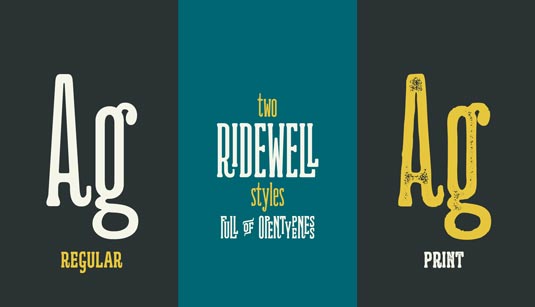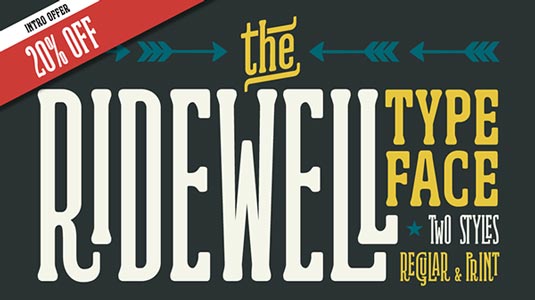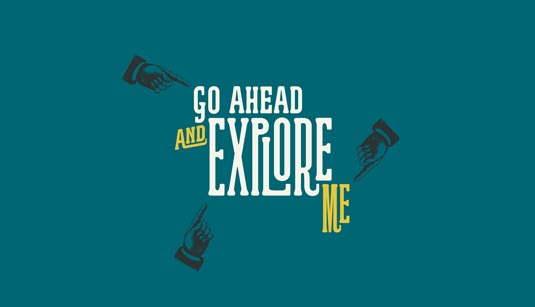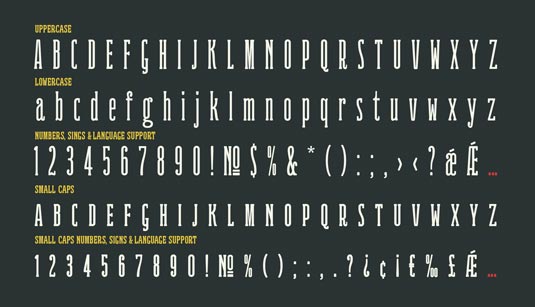
Font of the day: Ridewell
Ridewell by Kostas Bartsokas
"Ridewell is inspired by woodblock type," says its designer Kostas Bartsokas. "However the first spark of inspiration came from the poster below. Apparently it was some metal type that was used, but in any case, it got me thinking of a nice compressed wood type.
"I started working on it and eventually created the whole alphabet. It felt nice, but in the same time it looked quite old. I wanted to do something more edgy with it, so I started experimenting with the ligatures to give it a more contemporary feel and to add some uniqueness in the usage possibilities."